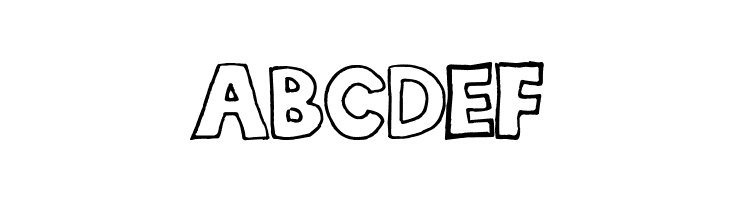
Mikey Stylish Font
- Font: Mikey Stylish
( Fonts by Kirk Shelton - www.kirkshelton.com )
A playful, hand-drawn font with bold outlines and a whimsical style.